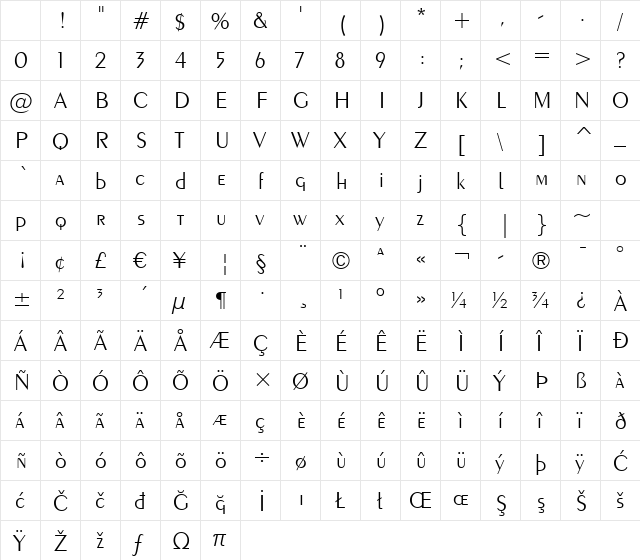
Exotc350 Lt BT is a composed and adaptable typeface that performs quietly and consistently across a wide range of design contexts. Its slender proportions lend an understated elegance to any composition.